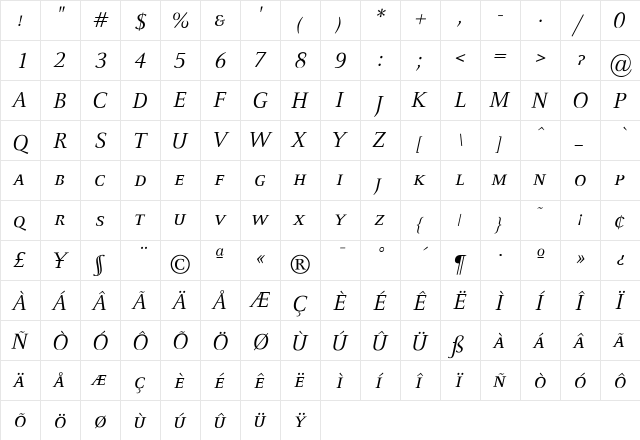
CelesteCaps Italic
| Foundry | Copr. Chris Burke |
CelesteCaps is a composed and adaptable typeface that performs quietly and consistently across a wide range of design contexts. The slanted form adds forward momentum and visual energy.
Pro Tip: Try CelesteCaps for annotation and caption copy alongside an upright companion — the contrast in angle creates a dynamic but ordered typographic system.